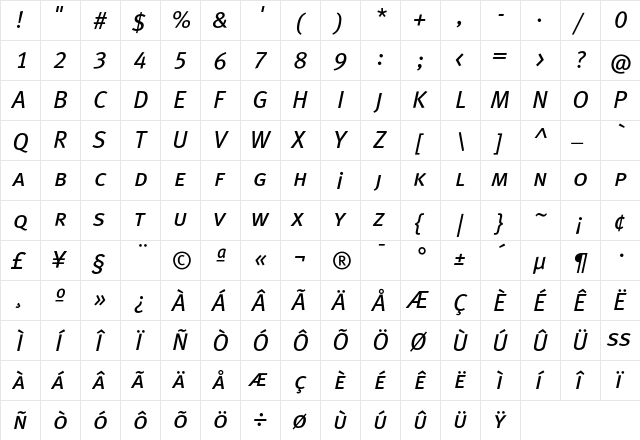
MetaBookTurkLF ItalicCaps
Design Context for MetaBookTurkLF Typeface
MetaBookTurkLF takes a measured approach to typography — its balanced proportions and neutral character make it a reliable workhorse for both digital and print work. Its italic angle brings a sense of urgency and motion to the letterforms.
Pro Tip: Use MetaBookTurkLF for emphasis, pull quotes, and subheadings where its slanted energy can add rhythm to the layout.